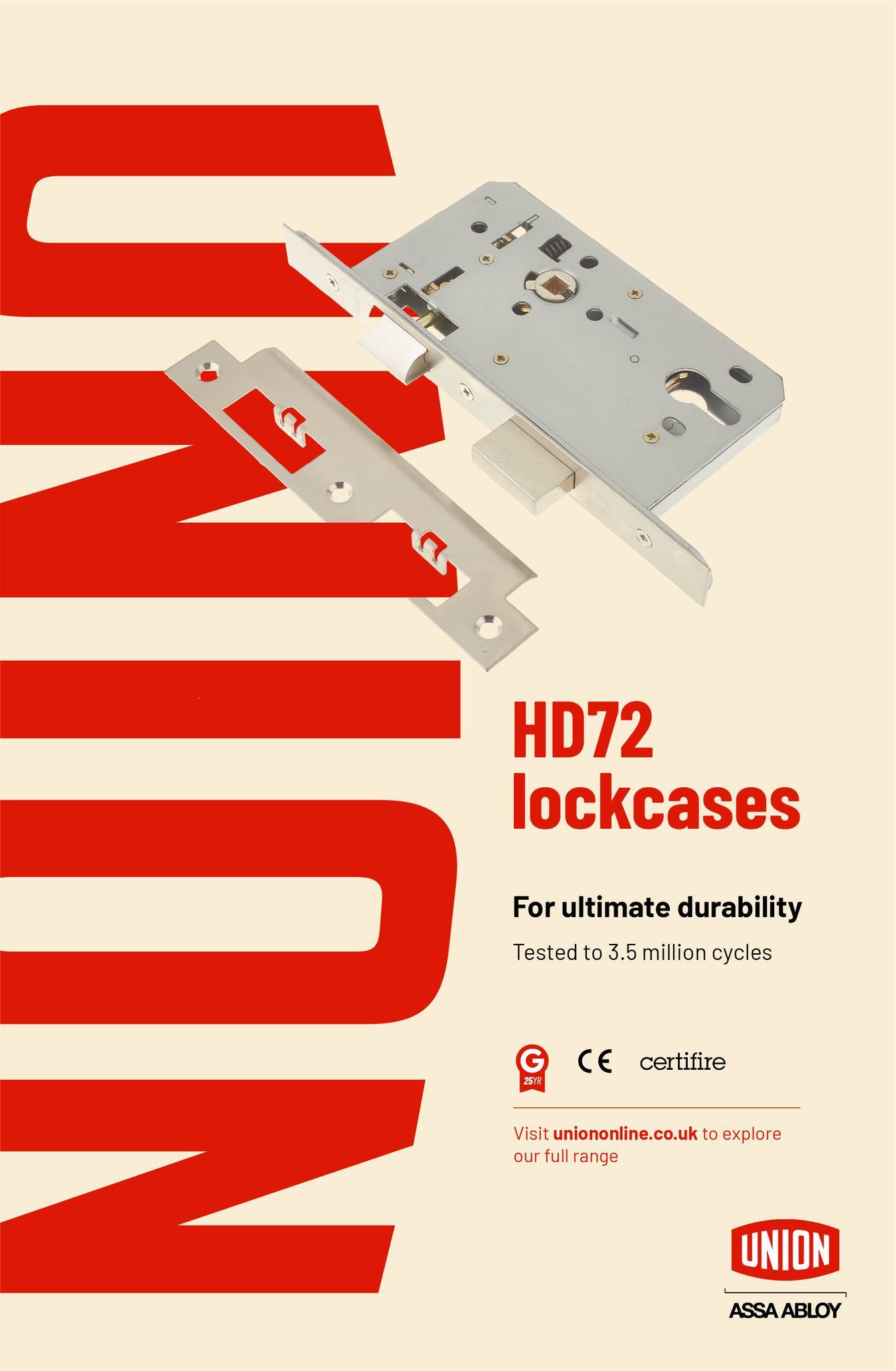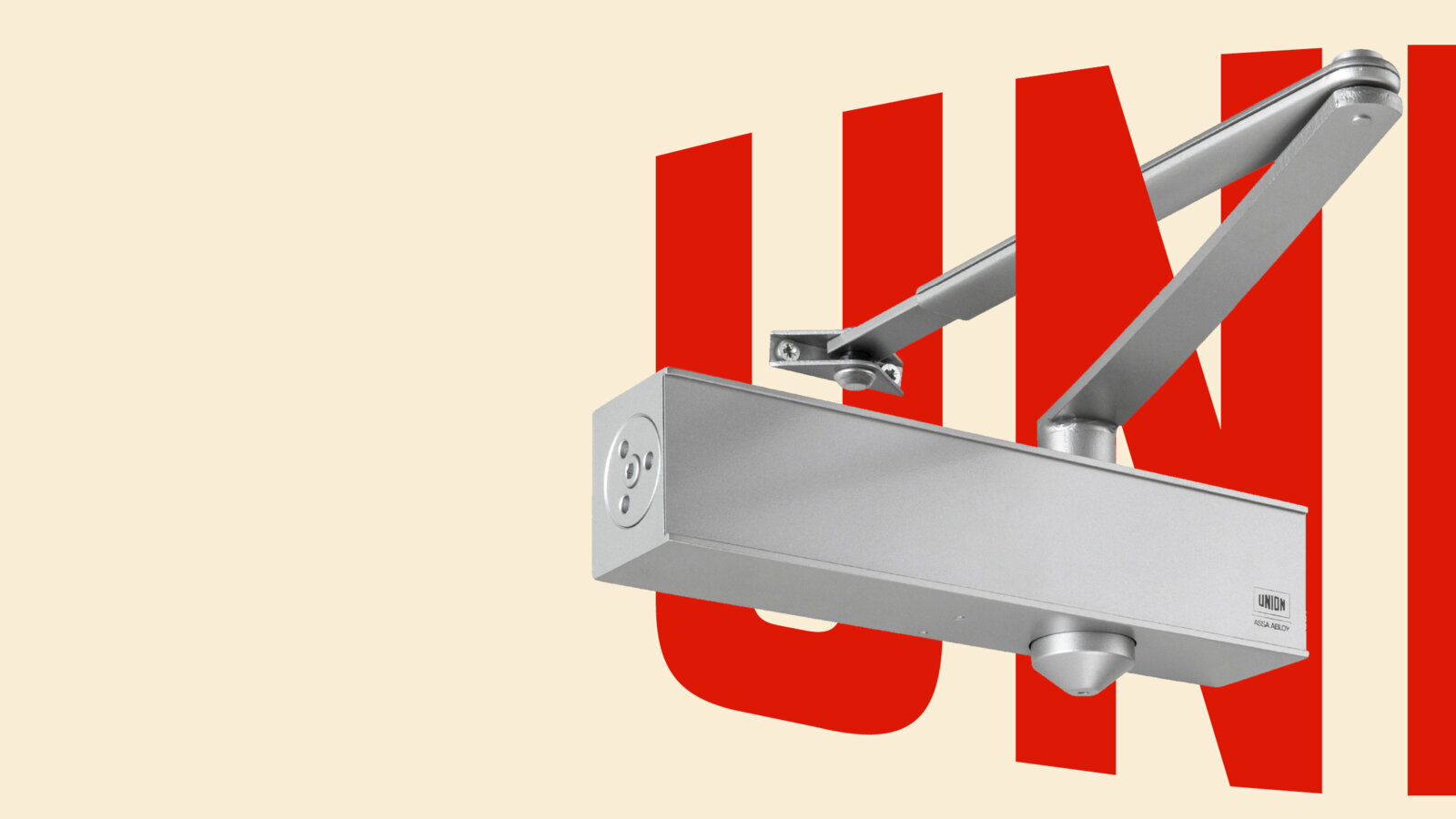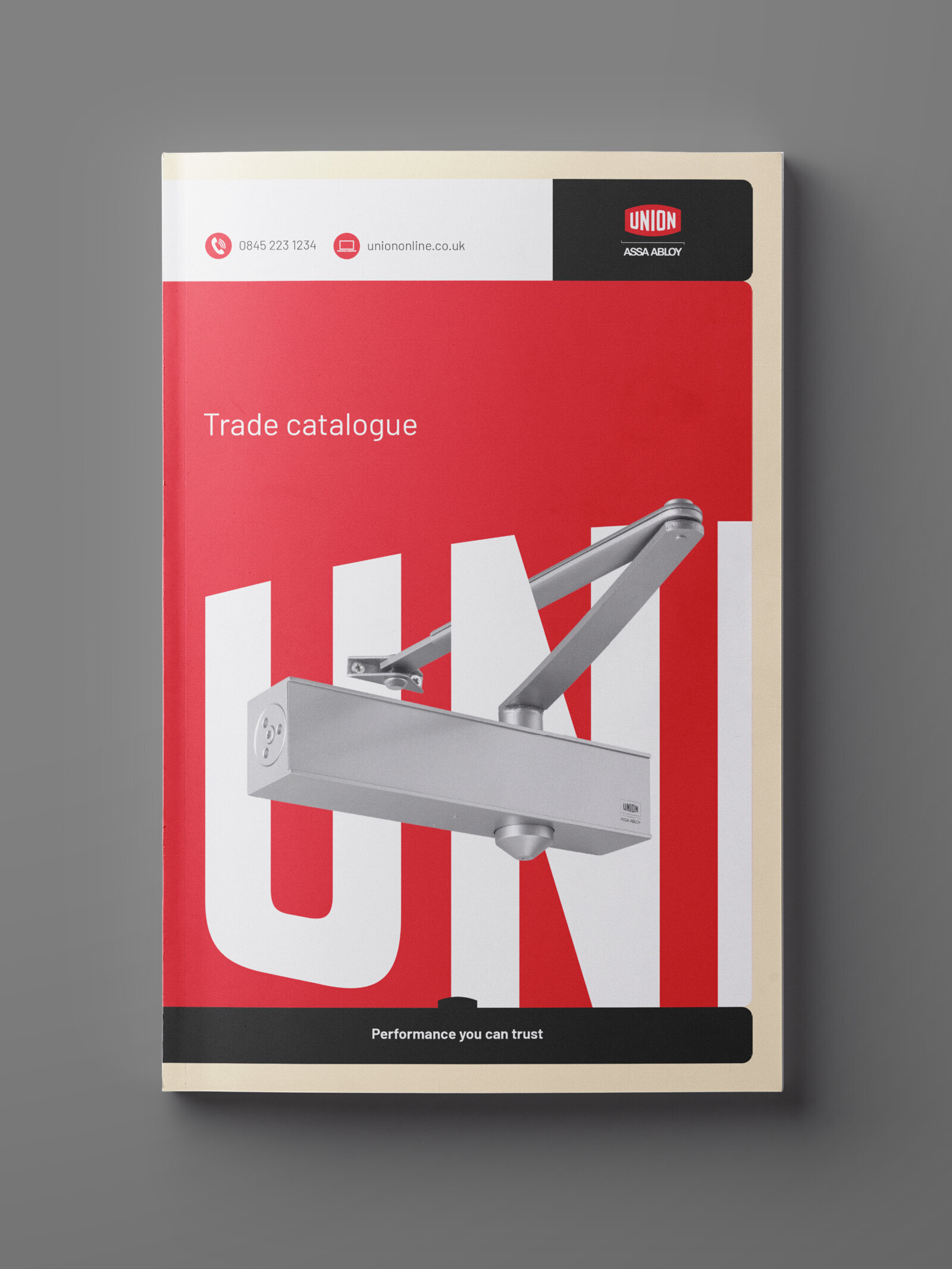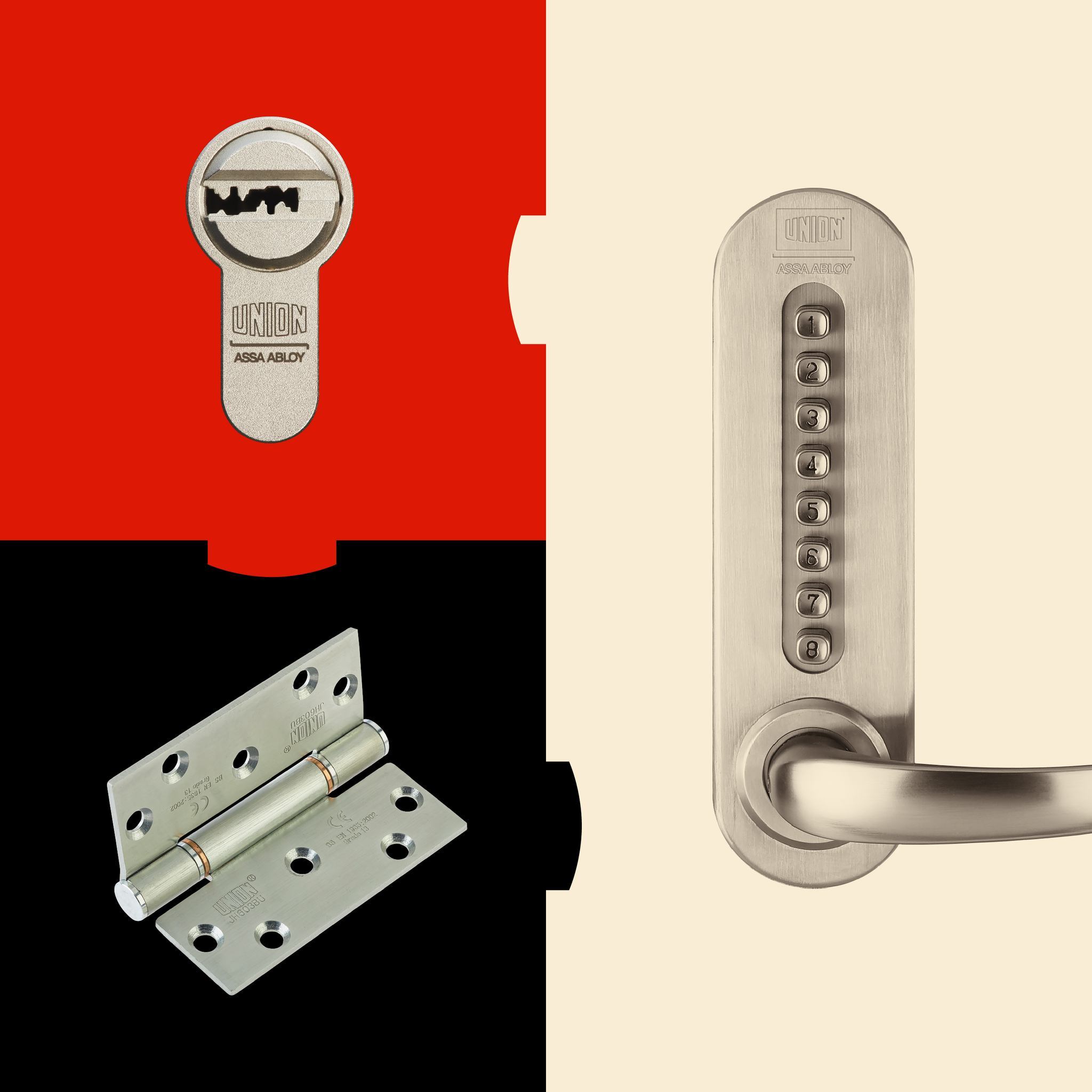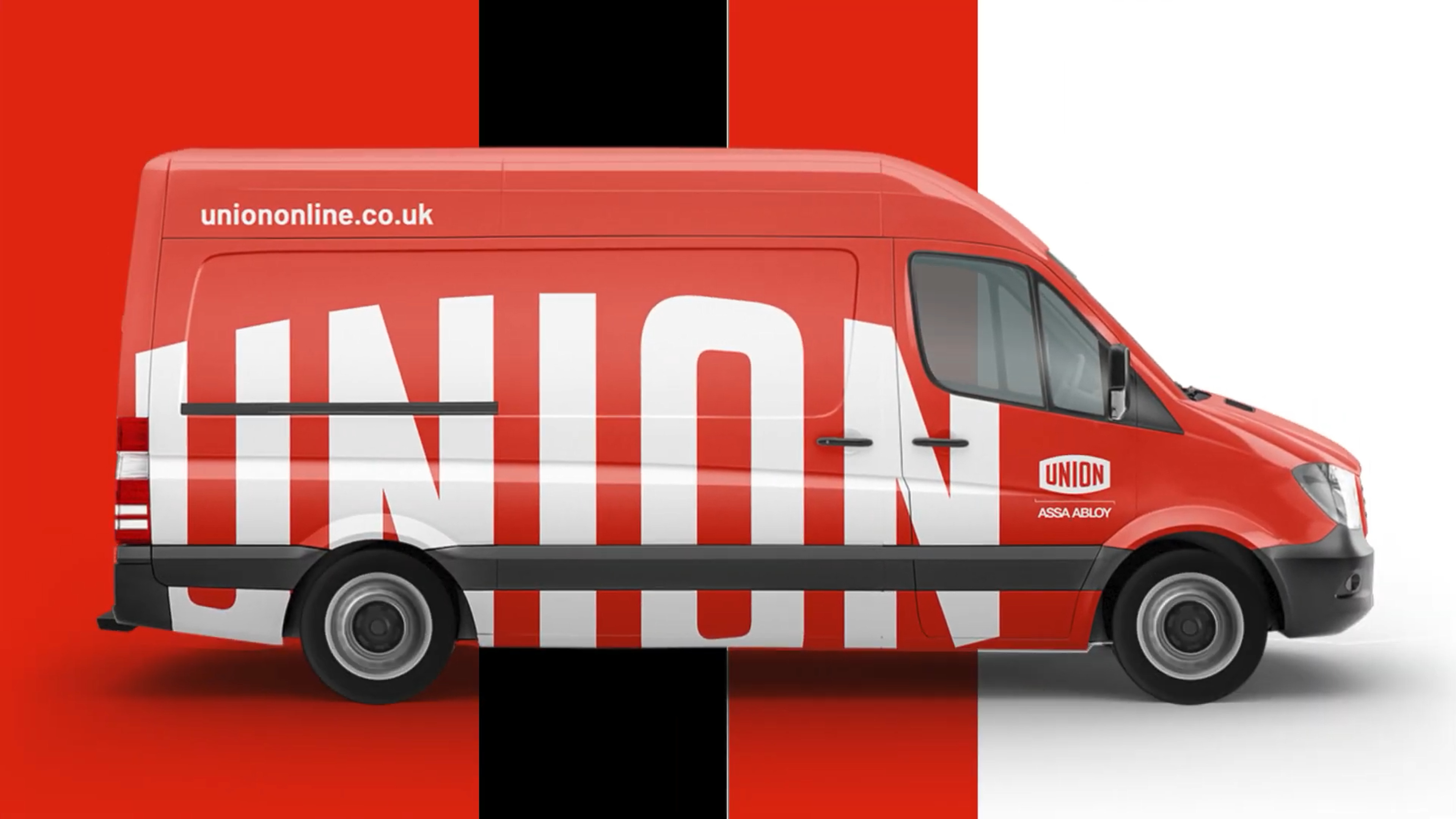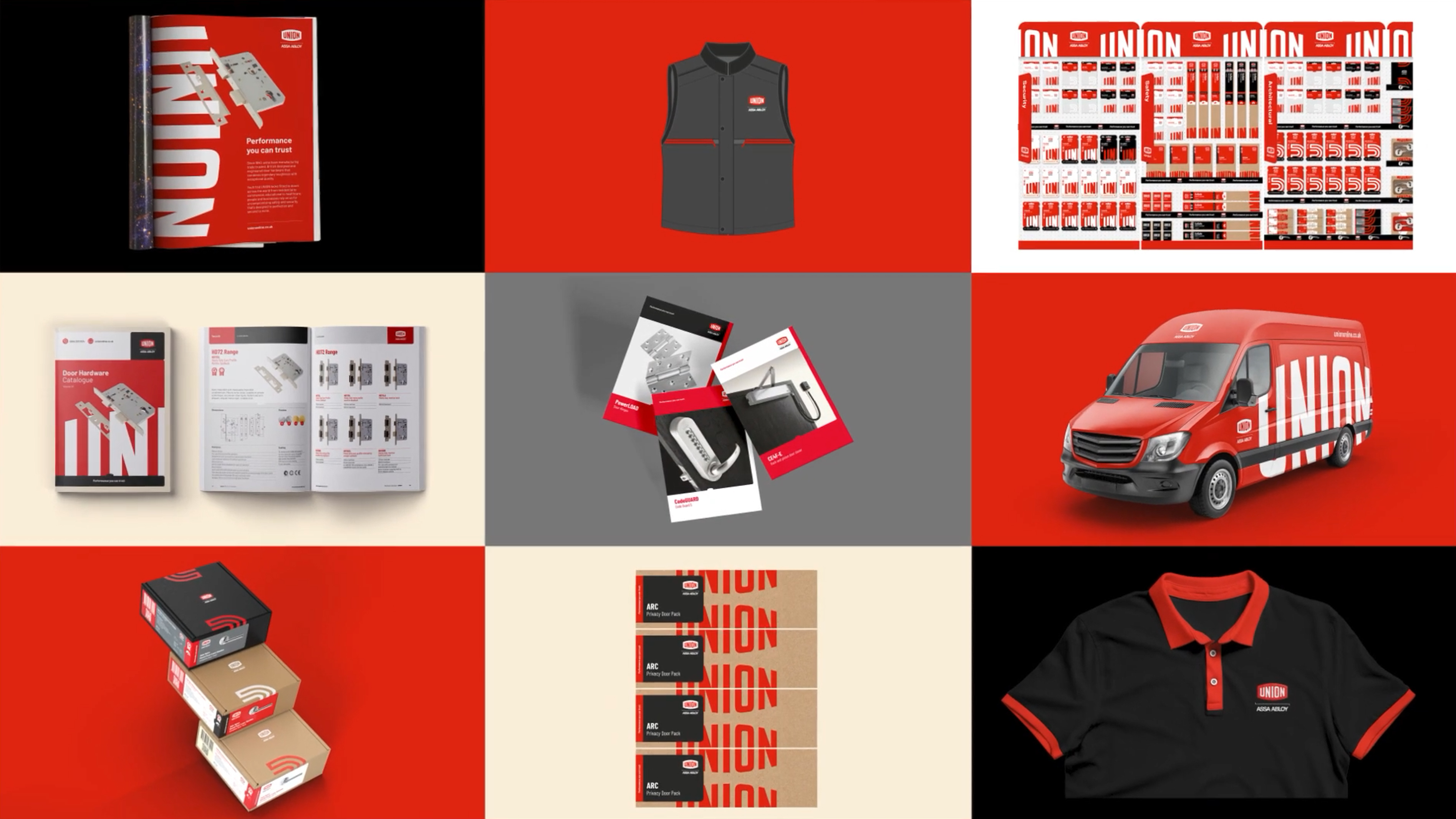
Union
A Logo Refinement for Union
The Union logo prominently used in vehicle livery
Final Union logo lock-up in monotone black on white
A range of printed material featuring the refined Union logo
Printed trade catalogue featuring the refined Union logo
Union, known for door hardware and locks, sought to strengthen their brand presence. Working with The Team, we refined their wordmark, improving legibility at small sizes while preserving authority and impact, to seamlessly bridge Union’s legacy and digital future.
Comparison between original logo, left, and the refined logo, right
Exploring the possibilities of the logotype’s design
Comparison between the original logotype, grey, and the refined logotype, white
Final logo lock-up